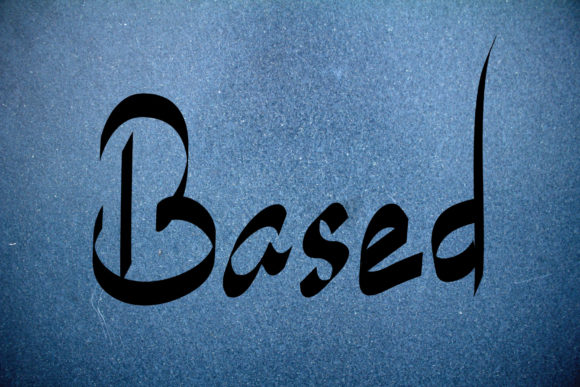
Behold, the Based font - a visual symphony of elegance and playfulness, crafted with meticulous attention to detail. Immerse yourself in its whimsical charm as it dances across your digital creations, leaving a trail of joy and uniqueness.
With its mischievous curves and cheerful strokes, Based is a font that captivates and enchants. Each letter, a masterpiece of carefully crafted lines, exudes a vibrant personality that breathes life into your designs. Whether you're creating eye-catching logos, playful social media posts, or stylish website headers, Based seamlessly adapts, elevating your creations to new heights of artistry.
Step into a world where your designs come alive, where every word carries a weight of emotion, and every sentence tells a captivating story. Based is not just a font; it's an experience that transforms your designs into captivating masterpieces.
Visualize your brand adorned with Based's playful elegance. Your logo, a beacon of creativity, draws attention with its charming curves and cheerful strokes. Your social media posts, infused with Based's infectious personality, become irresistible magnets for engagement. Your website, a symphony of visual delight, captivates visitors with its playful headlines and captivating text.
Beyond its aesthetic allure, Based is a font of unparalleled functionality. Its carefully crafted characters ensure effortless readability across all platforms, while its versatile nature makes it a perfect fit for a multitude of design projects. Whether you're designing for print or digital, Based's adaptability shines through, ensuring your creations look stunning in any context.
Unleash your creativity and embark on a journey with Based, where every design tells a story, every word carries emotion, and every project becomes a captivating masterpiece. Let Based be your font of choice, and experience the joy of creating designs that resonate with your audience and leave a lasting impression.